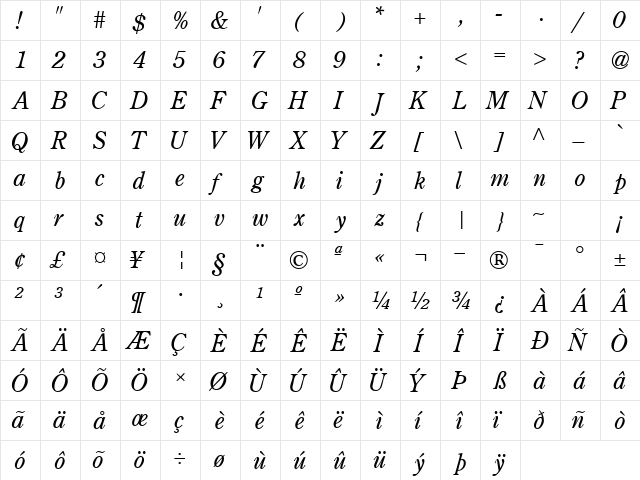
CenturyRetrospectiveSSK Italic Font Preview
CenturyRetrospectiveSSK Italic
CenturyRetrospectiveSSK Italic Font Details
Design Context for CenturyRetrospectiveSSK Typeface
CenturyRetrospectiveSSK wears its vintage influences proudly, with letterforms that recall mid-century signage, classic packaging, and nostalgia-driven design. The dynamic lean of this cut emphasises speed and emphasis in any layout.
Font Pairing: Combine CenturyRetrospectiveSSK with a simple slab or neutral sans — period-accurate companions reinforce the vintage feel without competing for attention.
Pro Tip: Use CenturyRetrospectiveSSK for headlines and pull quotes rather than body copy — its personality is best appreciated in short, focused bursts.